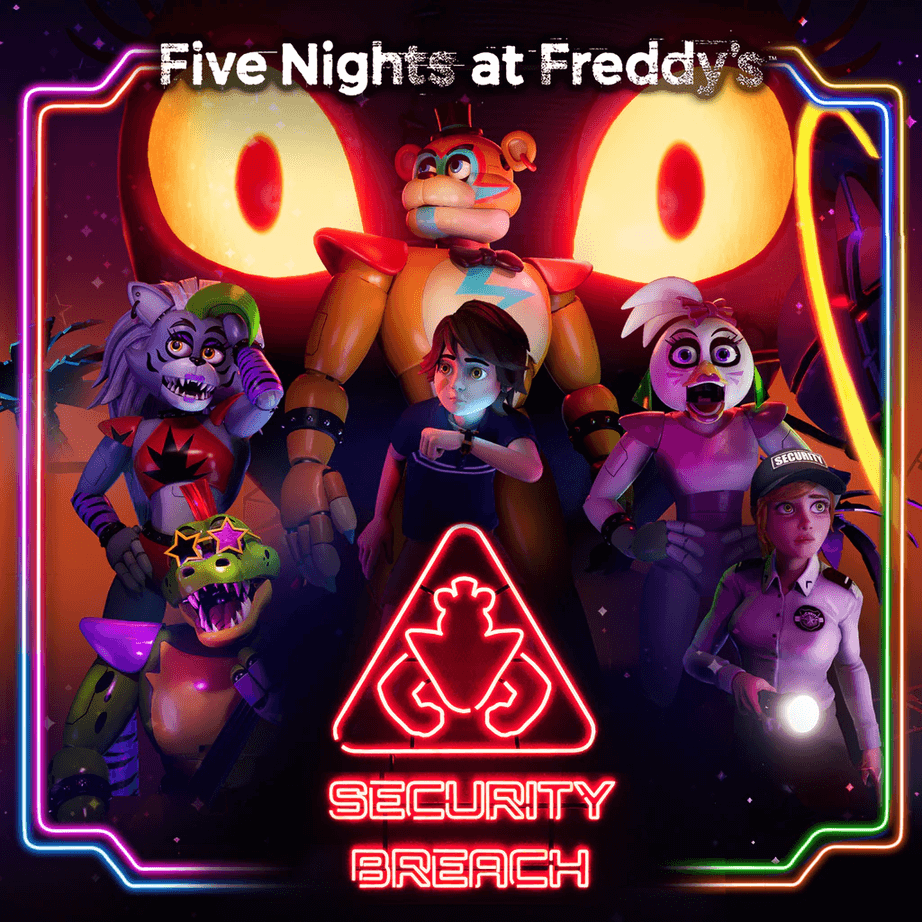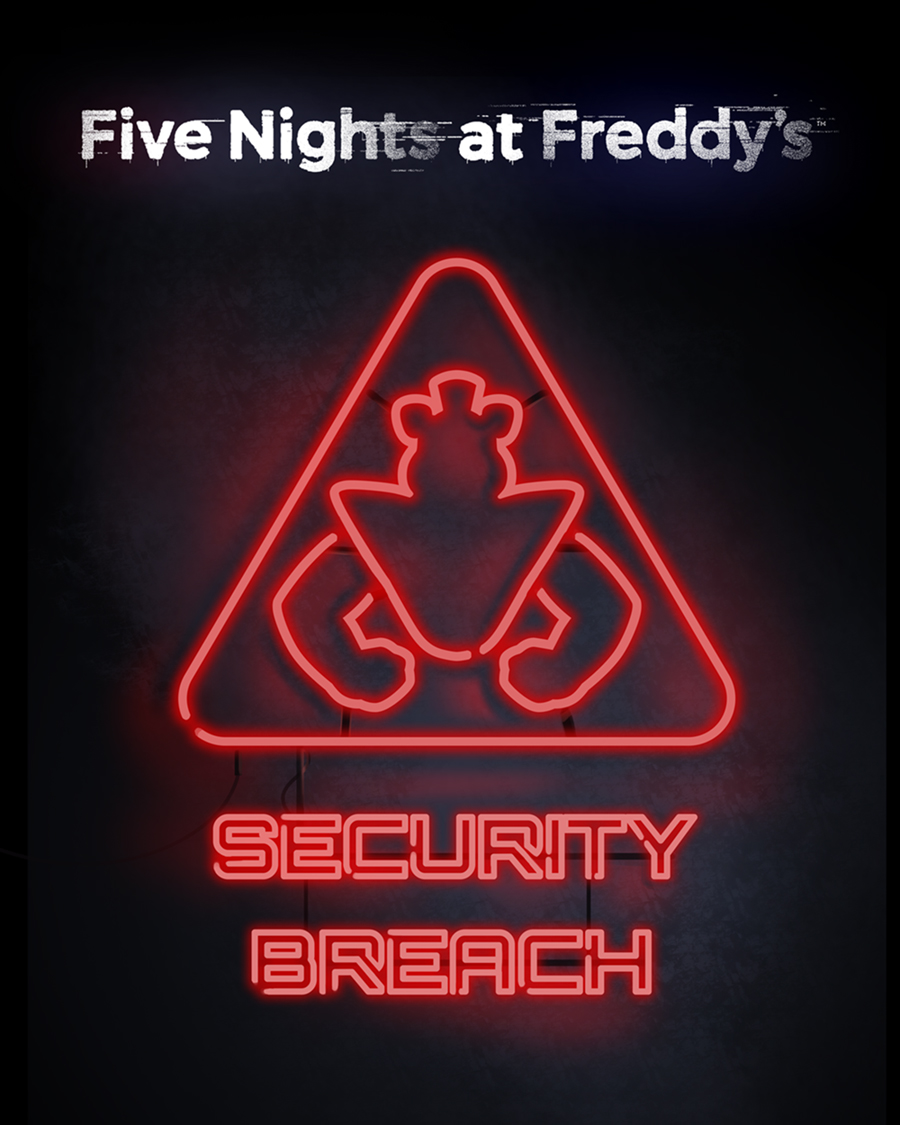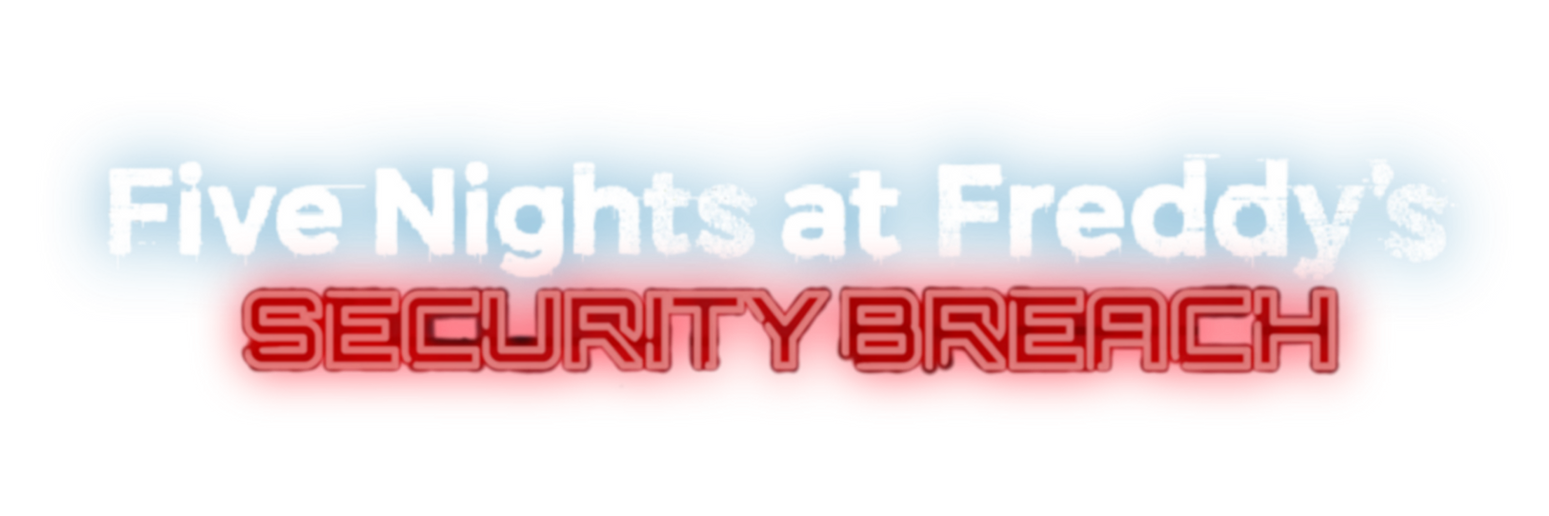
Five Nights At Freddy S Security Breach Font - Browse by alphabetical listing, by style, by author or by popularity. Archive of freely downloadable fonts. The five nights at freddy’s: Archive of freely downloadable fonts. The time is now 22:13. Security breach is a 2021 survival horror video game developed by steel wool studios and published by scottgames. Security breach font uses a customized version of orbitron bold with a neon effect.
Security Breach Font
Security Breach Font Uses A Customized Version Of Orbitron Bold With A Neon Effect.